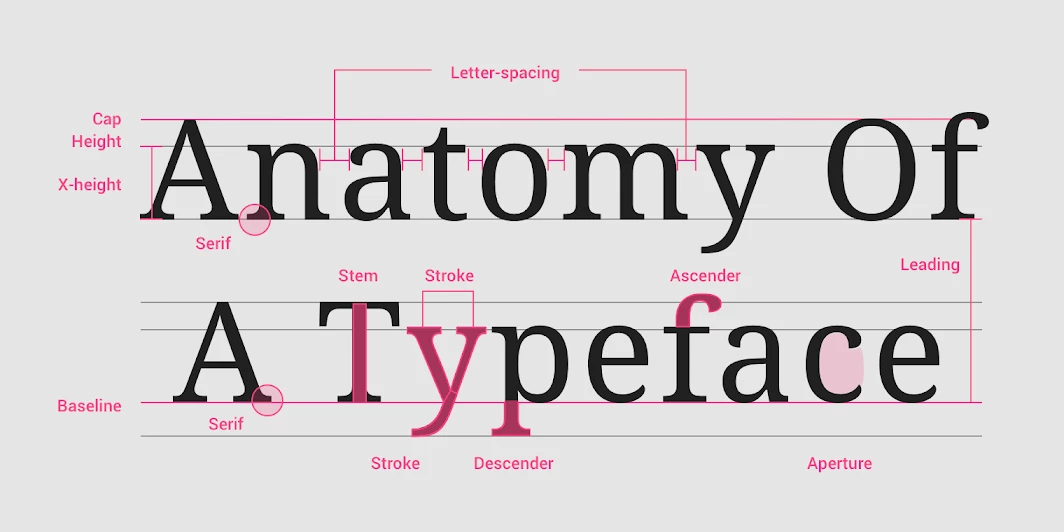
3/8 in height font size
What is 3/8 in height for font size?  I  customer and said that the title should be in 3/8 in tall or height, If I am.right that is 72pt and it is too big for menu board title and it has a lot of text.
I assume you mean this for a print document since I don't think anyone would ever request the height of letters in inches for something on the web. That being said, once you have the type just the way you want it then simply click Control T (or Edit-Free Transform) and then Type-Rasterize Type Layer. This will allow you to select the text as an object (without the spacing above and below that comes with selecting text). Then at the top type .375 in in the box labeled H:. Make sure the H: and W: is anchore together so the type changes proportionally.
You just can't edit the text after this so if you messed up the spelling or want a different font you will have to start over by creating a new type layer.
How will this be used -- print or digital?
If it's to be used on a digital display, what pixel density and resolution is the target display?
If you accept the statement regarding computer type that one inch is equavalent to 72 points, then 3/8 of an inch would be 27 points.
FWIW: I was brought up in the world of hot type where the x height of a font may be different among faces of the same point size... fonts were referred to as "large on the body" (with short descenders) or "small on the body" (with long descenders) so there was no single calculation of converting points to inches based on x height. It was not designated based on including ascenders and descenders either, but on the height of the surface on which the letters were cast. The body.
Type is measured by the size of the metal block, just as Gutenberg did, and the size includes the parts of the letters that ascend above the x-line and descend below the baseline, whether or not the Ascenders and Descenders exist. It is typically measure in points, because that's what Gutenberg did.
That being said, since your client has given you a measurement in inches, be aware that the size of type in Photoshop may change depending on the pixels per inch (ppi) of the document.
Will the final copy be printed? What is the ppi? What format are you giving back to him?
If you have upper- and lower-case, then find out what the customer wants. If it's all caps, I'd print it and measure then get it signed off.